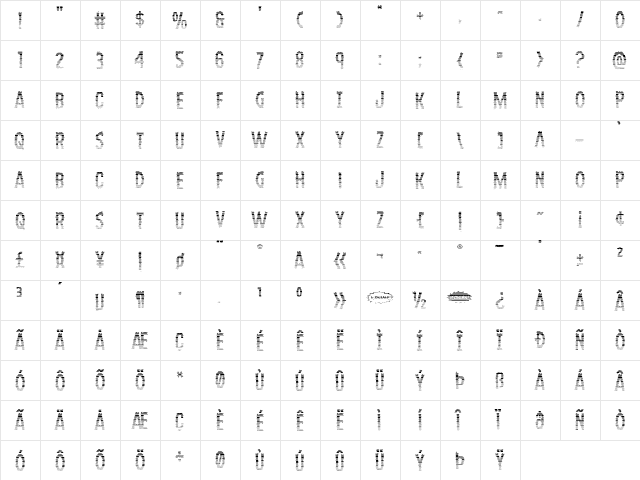
Ampire Gradient Regular
Design Context for Ampire Gradient Typeface
Ampire Gradient is a composed and adaptable typeface that performs quietly and consistently across a wide range of design contexts.